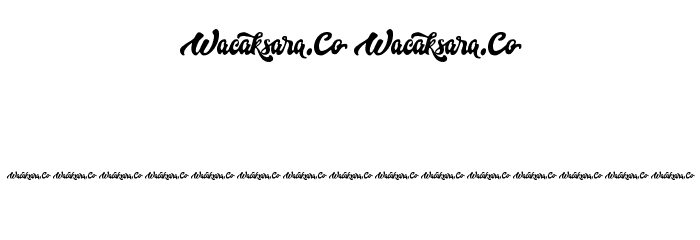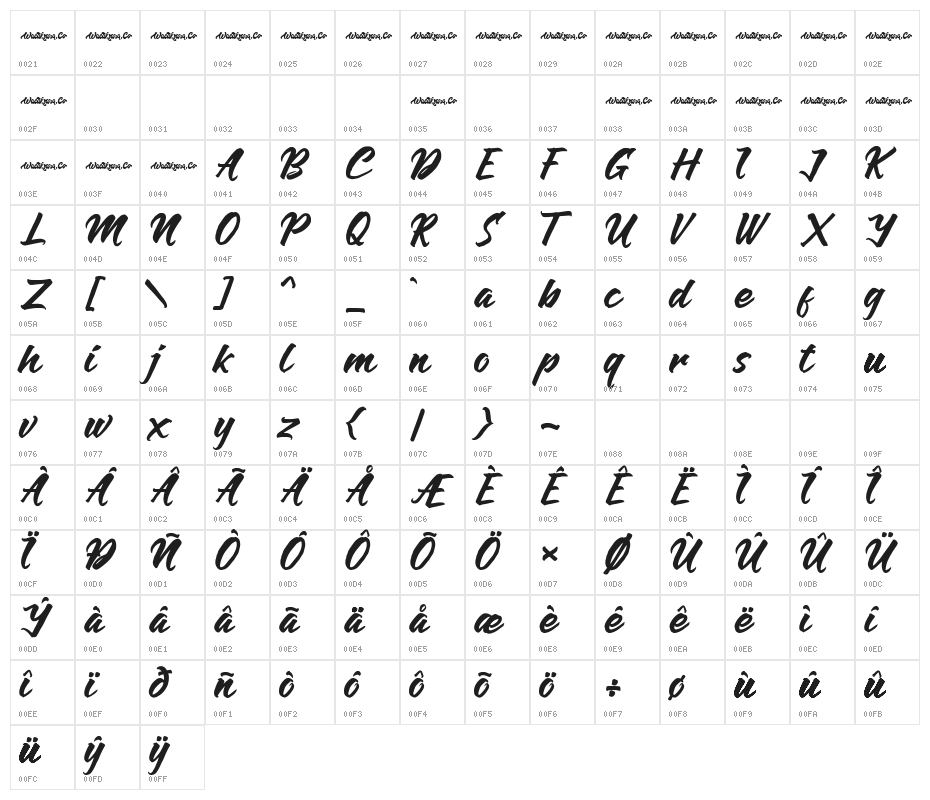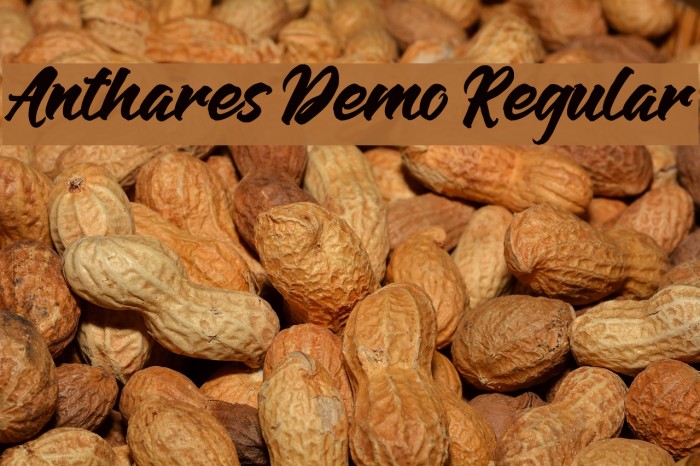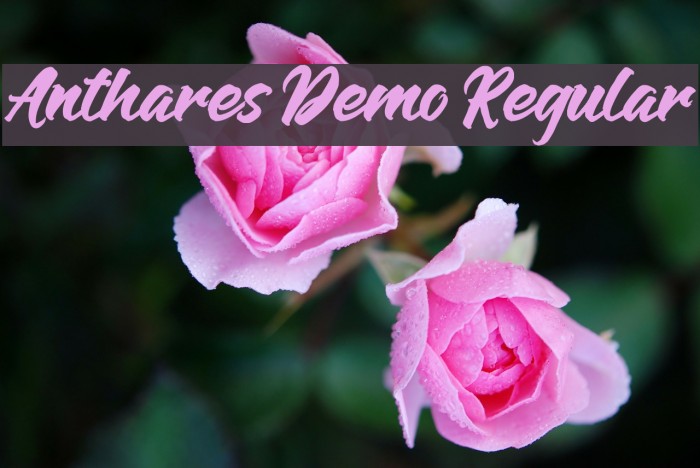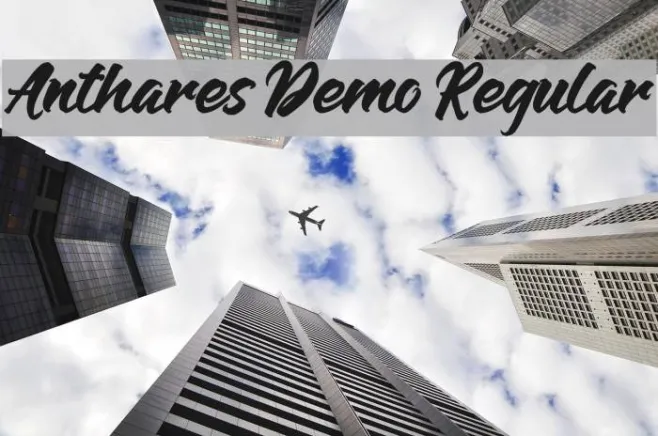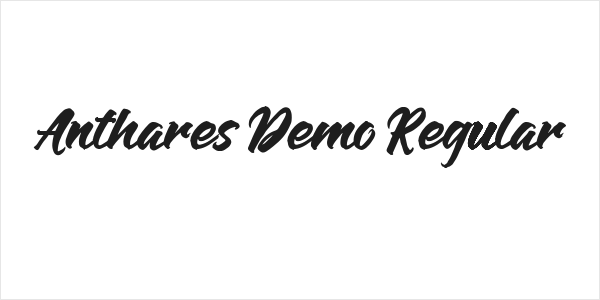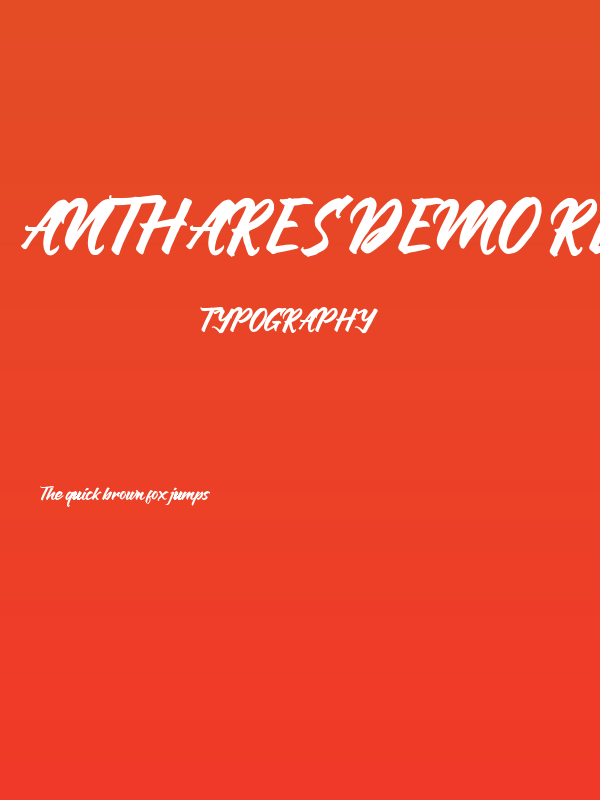
Anthares Demo Regular Font
Anthares Demo Regular Description
This font features a bold and expressive script style, characterized by its flowing, cursive letterforms that convey a sense of elegance and dynamism. The strokes are thick and consistent, providing a strong visual impact. The uppercase letters are particularly striking, with dramatic flourishes and a slight slant that adds to the overall fluidity. The lowercase letters maintain a cohesive look, complementing the uppercase with their rounded and connected forms. This font is ideal for creating eye-catching headlines or logos that require a touch of sophistication and flair.
| Use Case | Logos, Headlines |
| Proposed Projects | Ideal for branding, logo design, wedding invitations, and elegant packaging. |